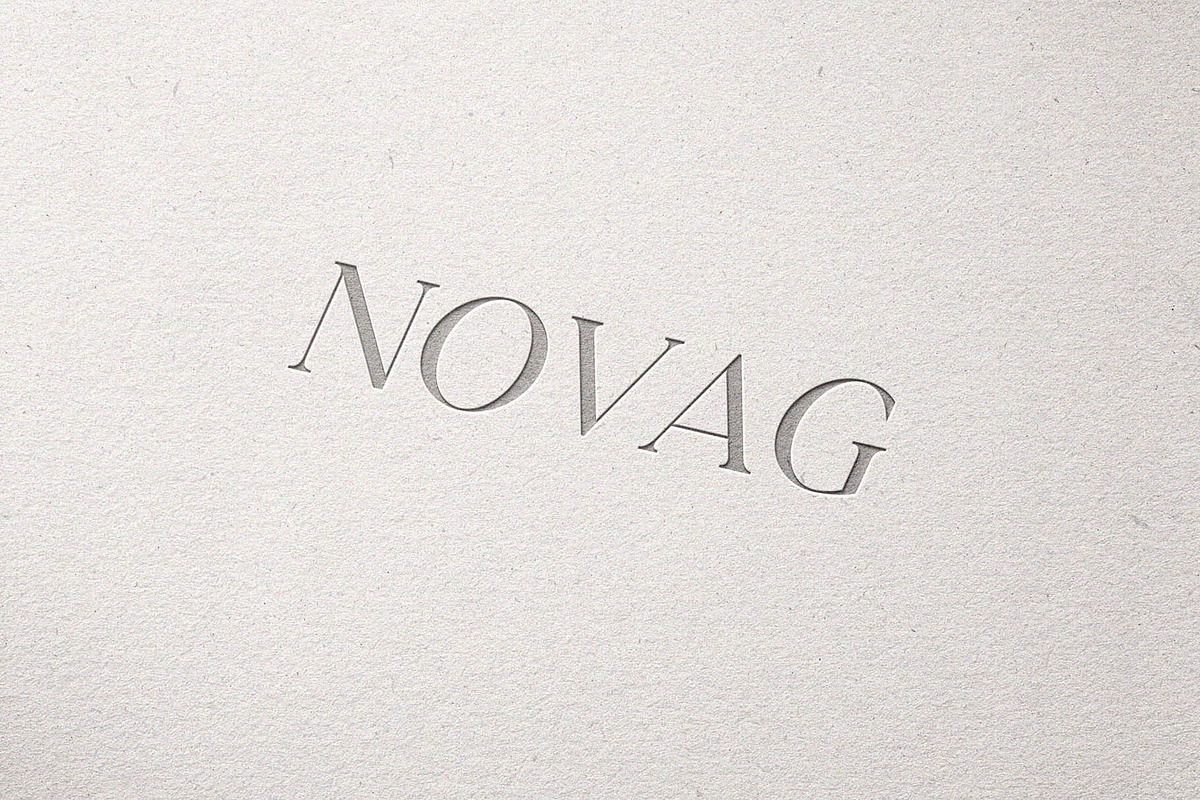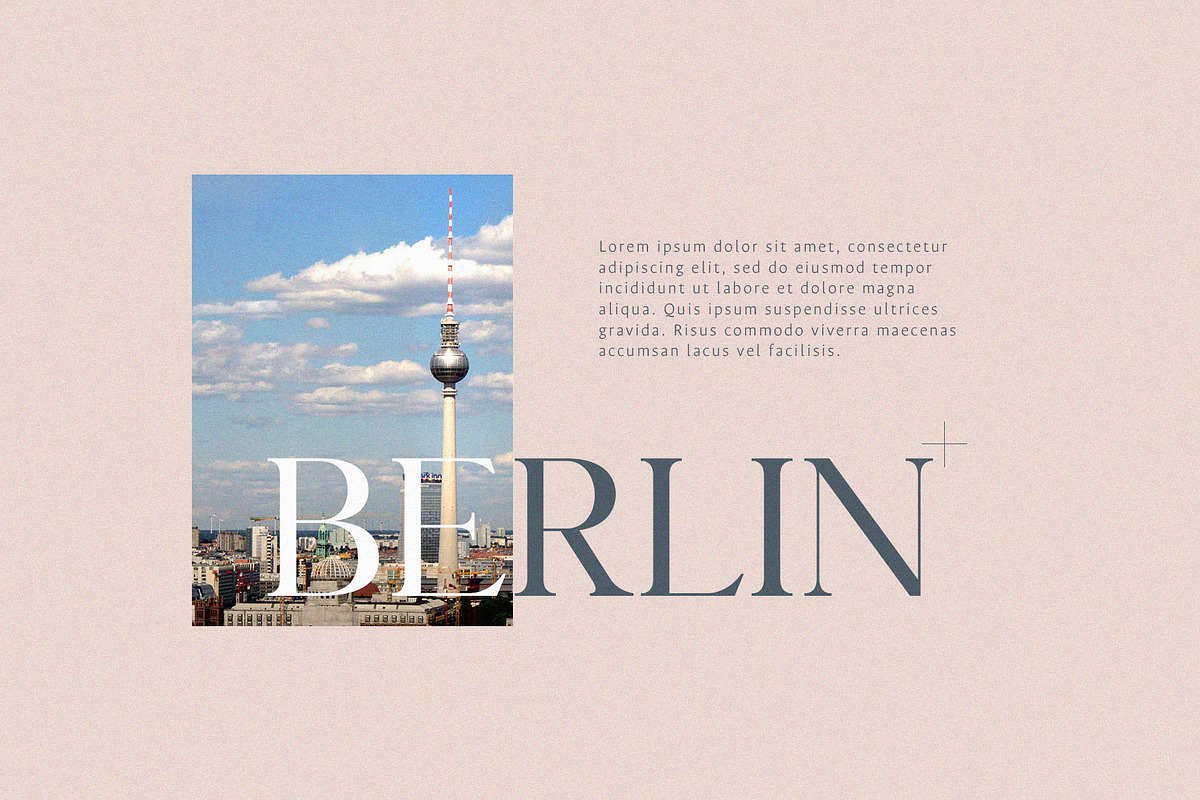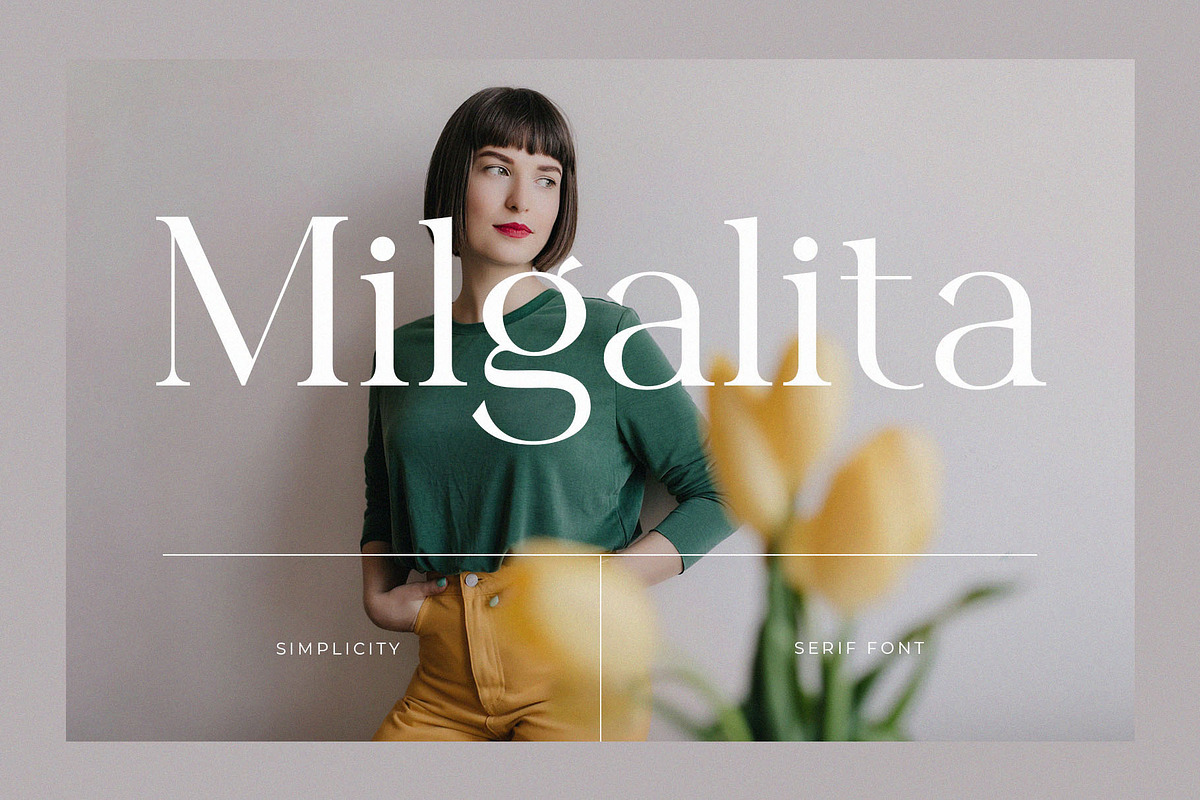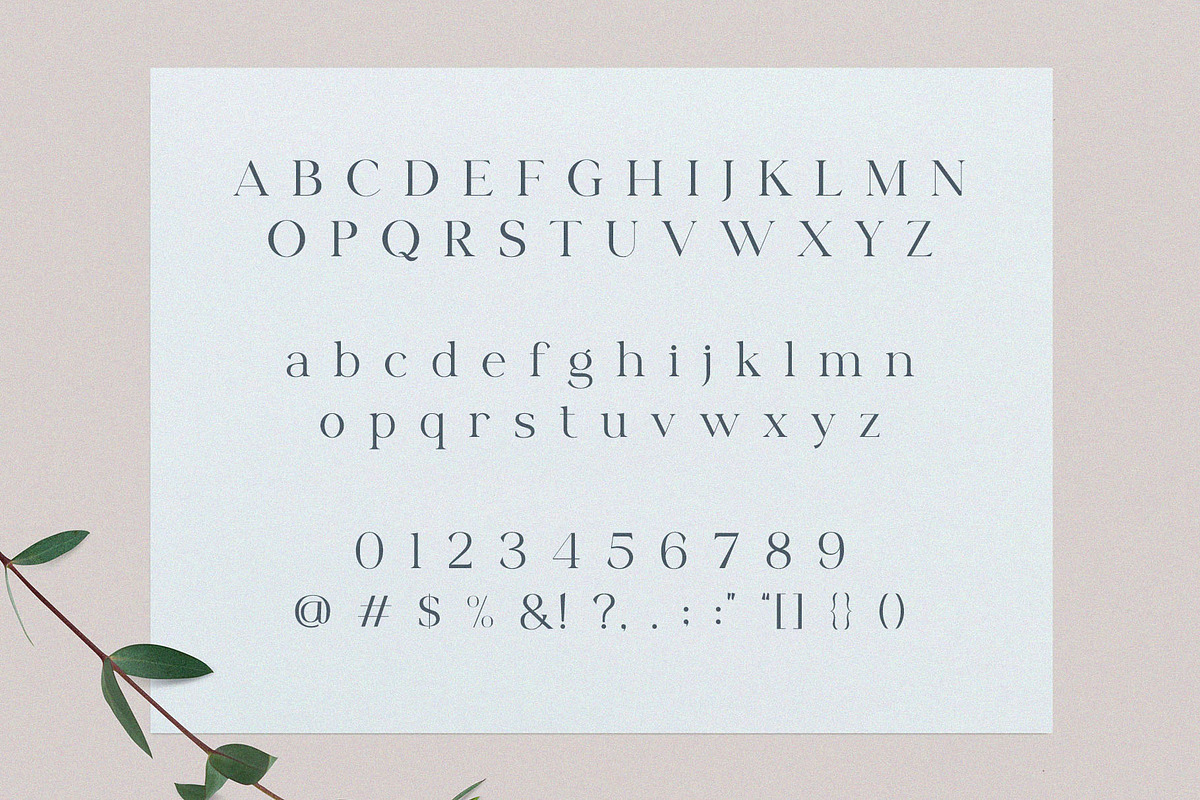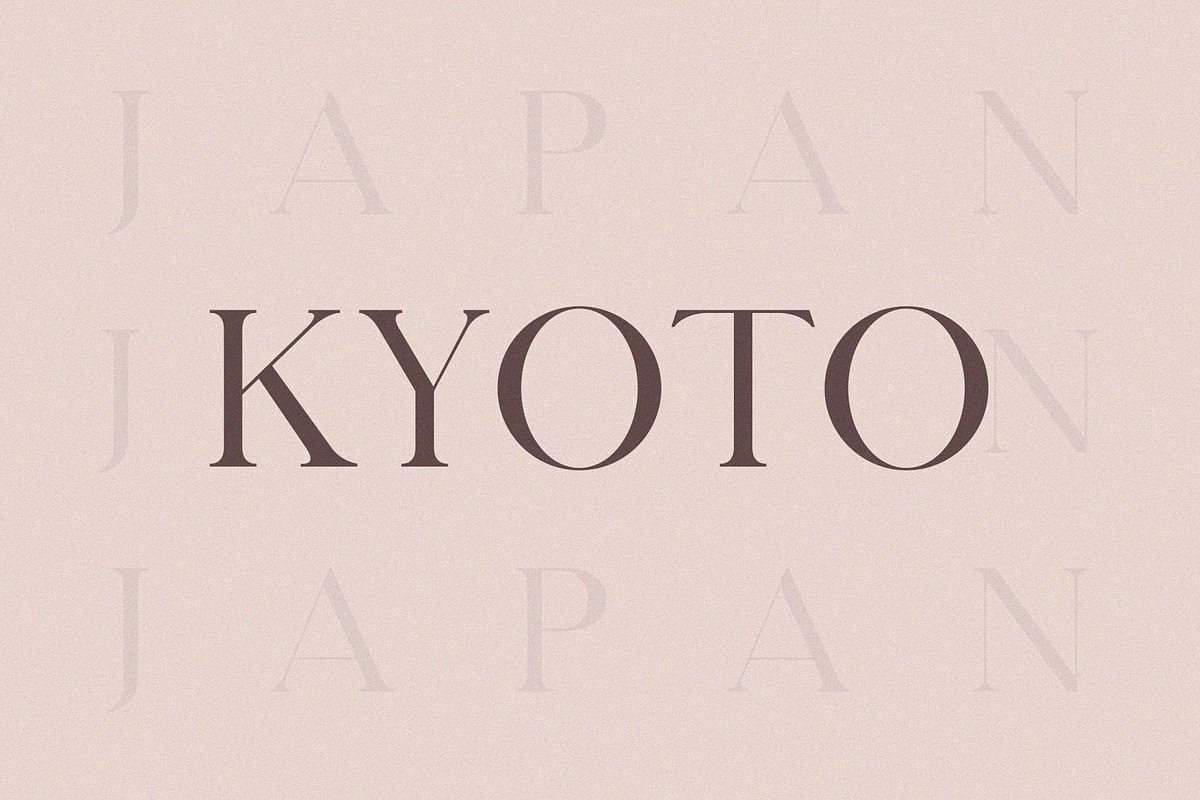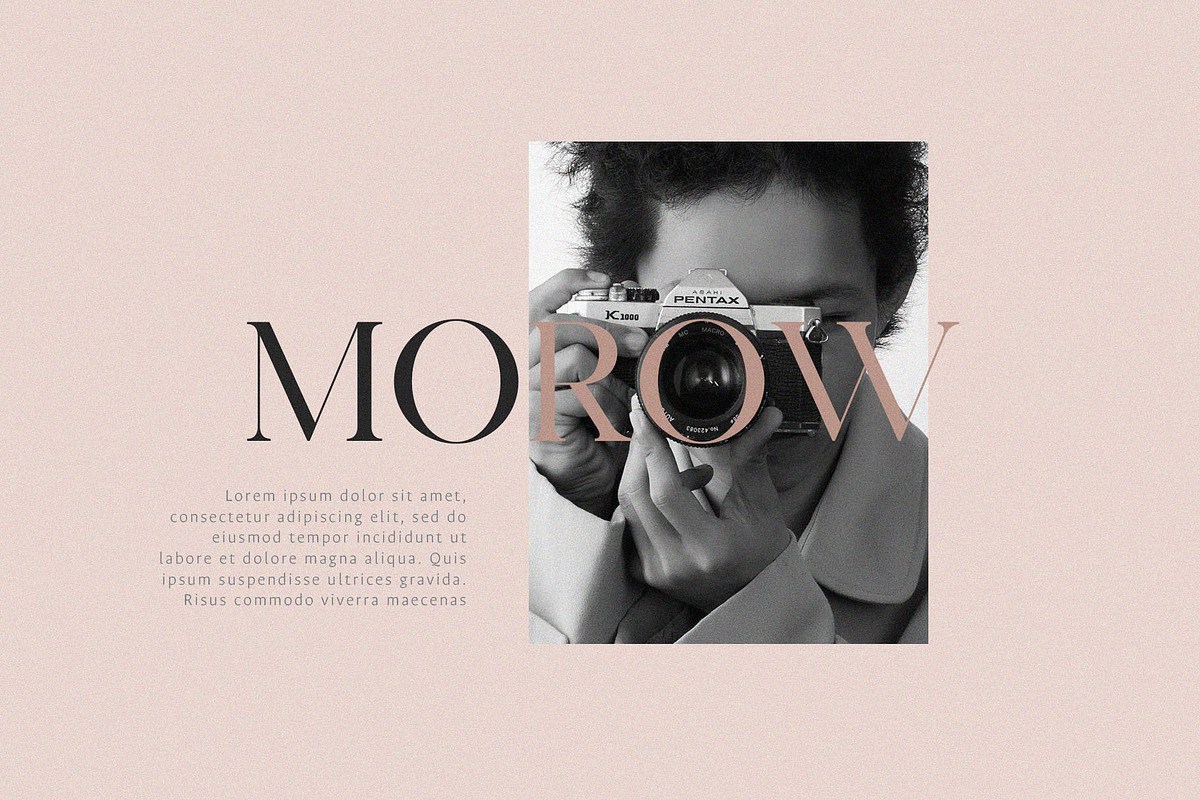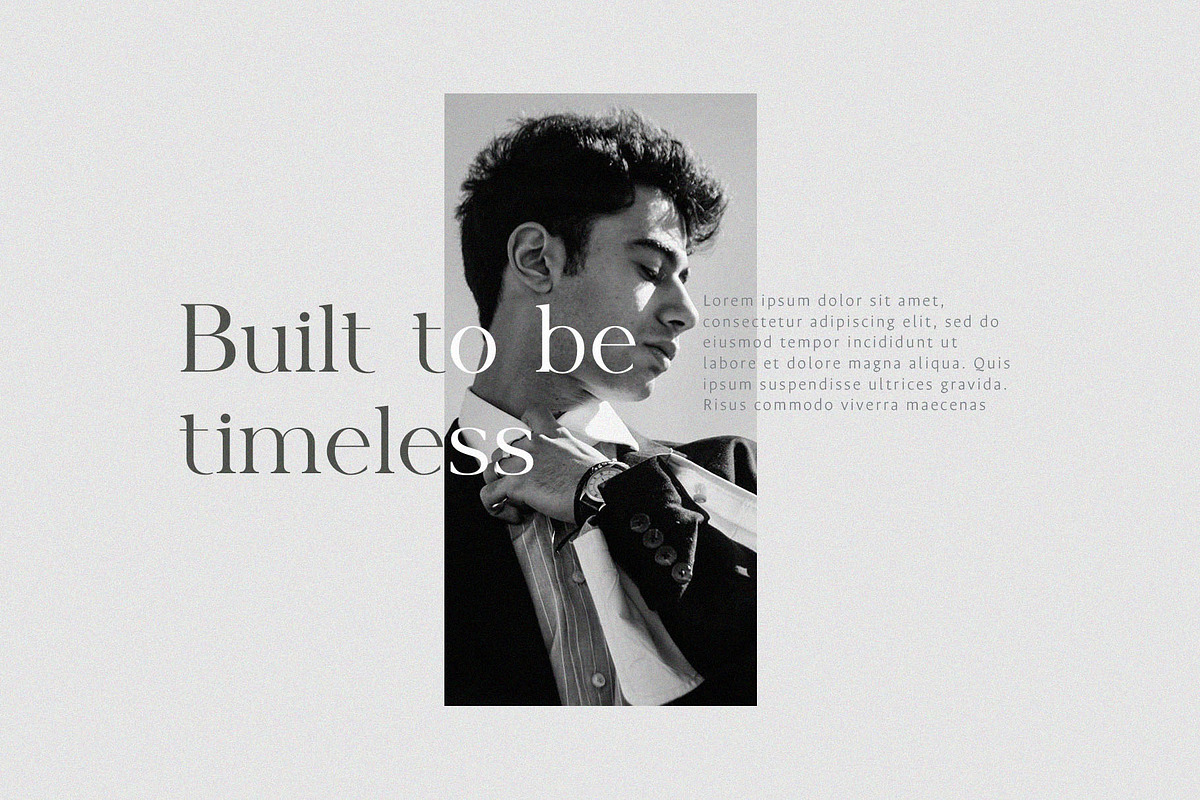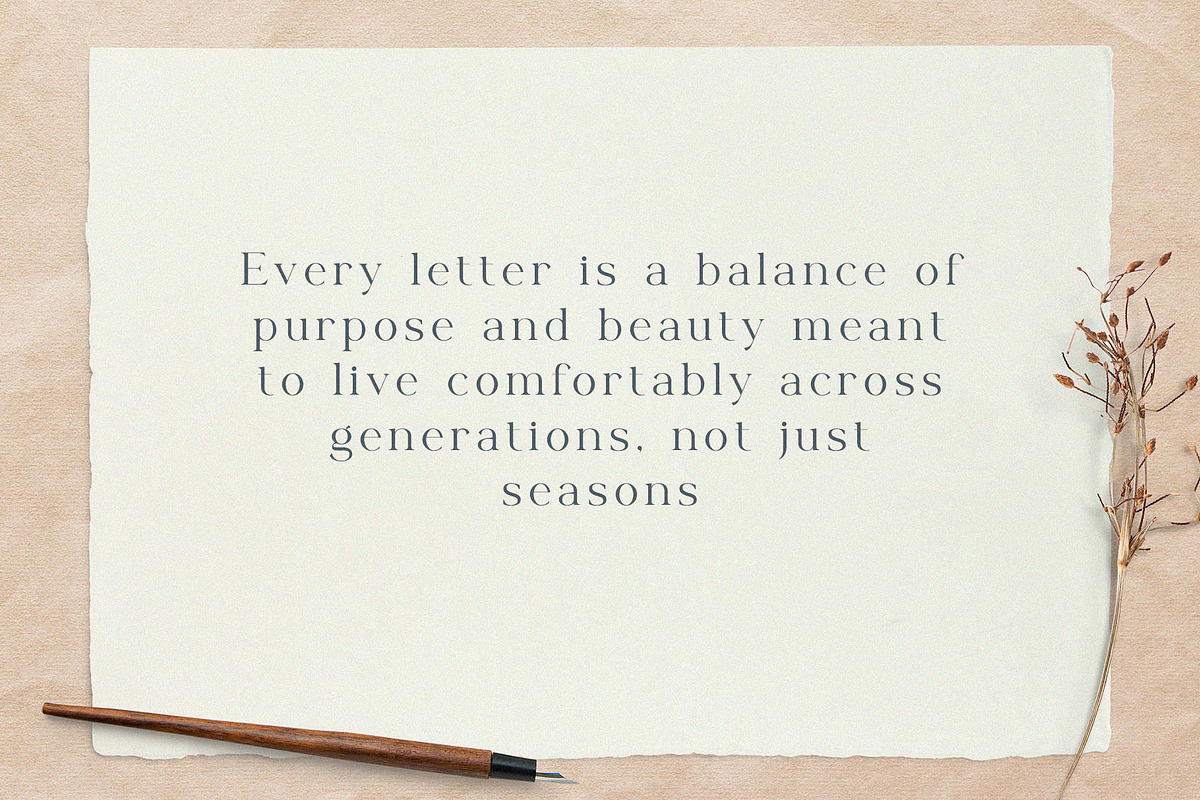
Milgalita – Modern Elegant Serif
Introducing Milgalita Elegant Serif Font. Milgalita is a modern and classy typeface, best used as a display for headings, logos, branding, magazines, product packaging and invitations. Milgalita come with clean lines and smooth curves give any project an extra touch of class.